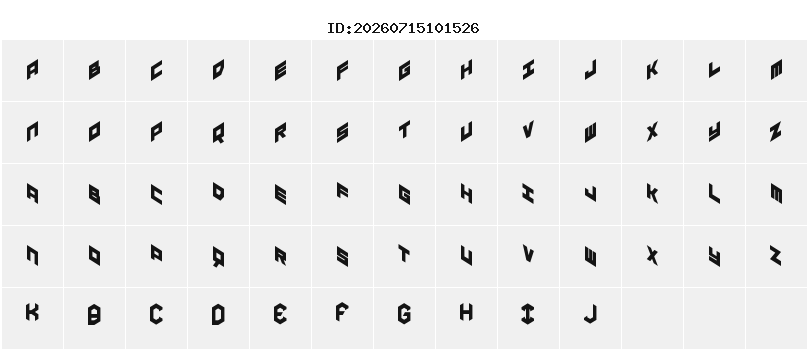
YAY USA Condensed Preview
• Font Name: YAY USA Condensed
• Font Style: Condensed
• Full Font Name: YAY USA Condensed
About YAY USA Condensed.ttf
YAY USA Condensed.ttf is a modern, elegant sans-serif font designed for ultimate readability and visual harmony. Perfect for branding, headlines, web design, and print materials.